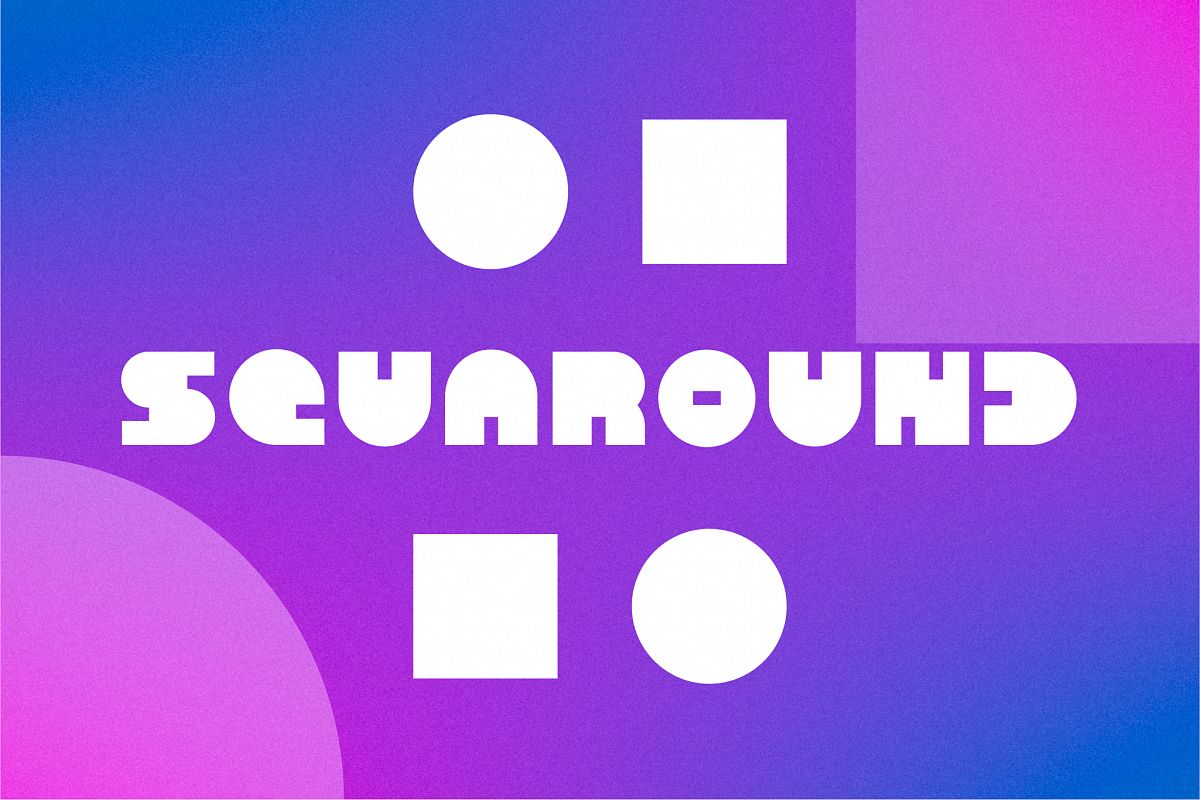
Created By HibraR
SQUAROUND
Typeface constructed from geometric figures, based mainly on squares and circles, forming a very marked aesthetic with great personality.